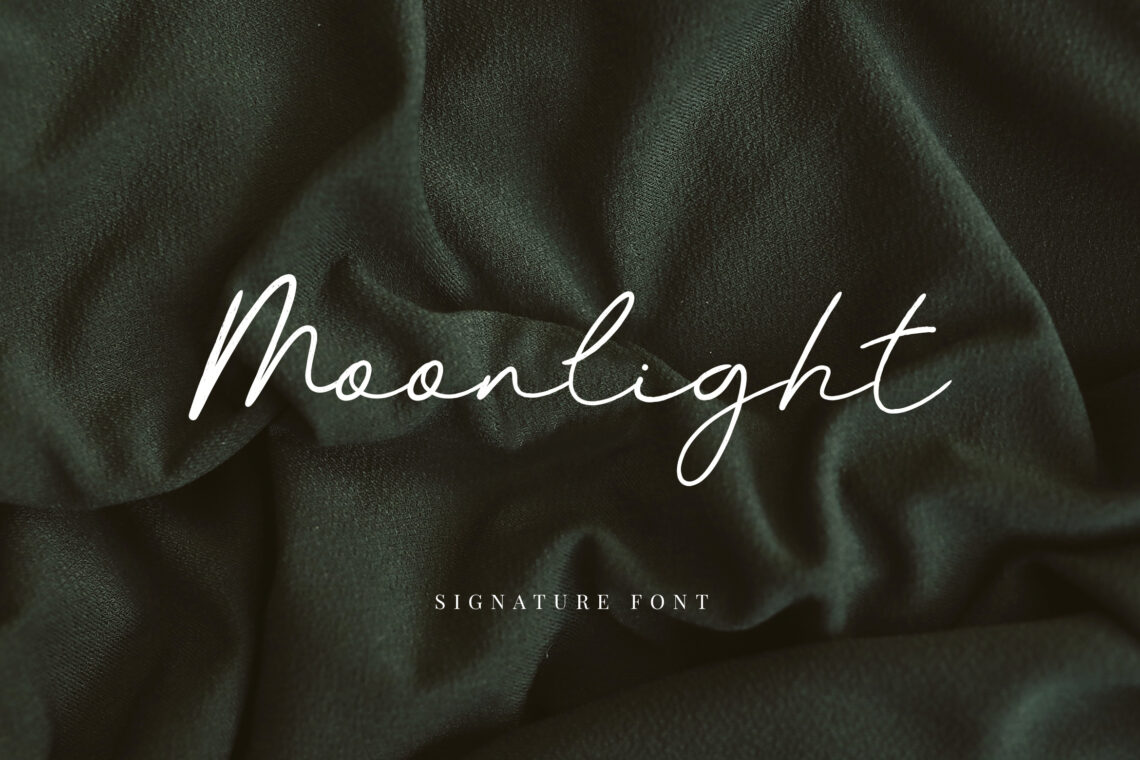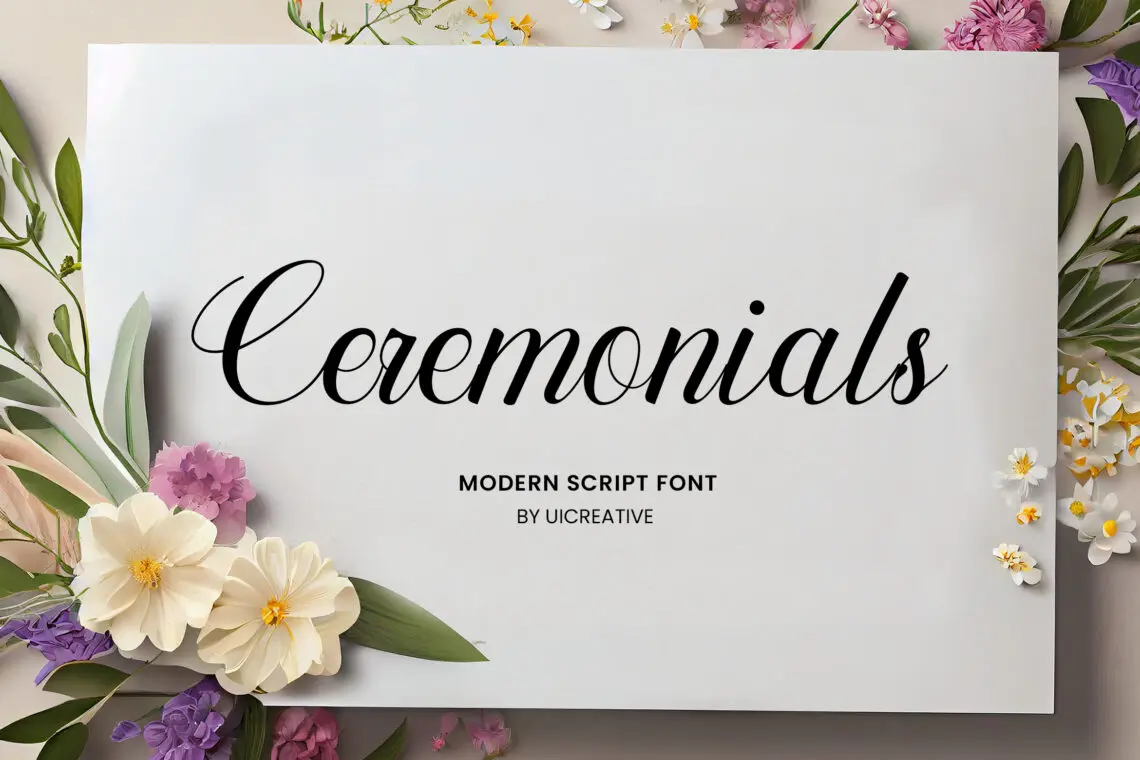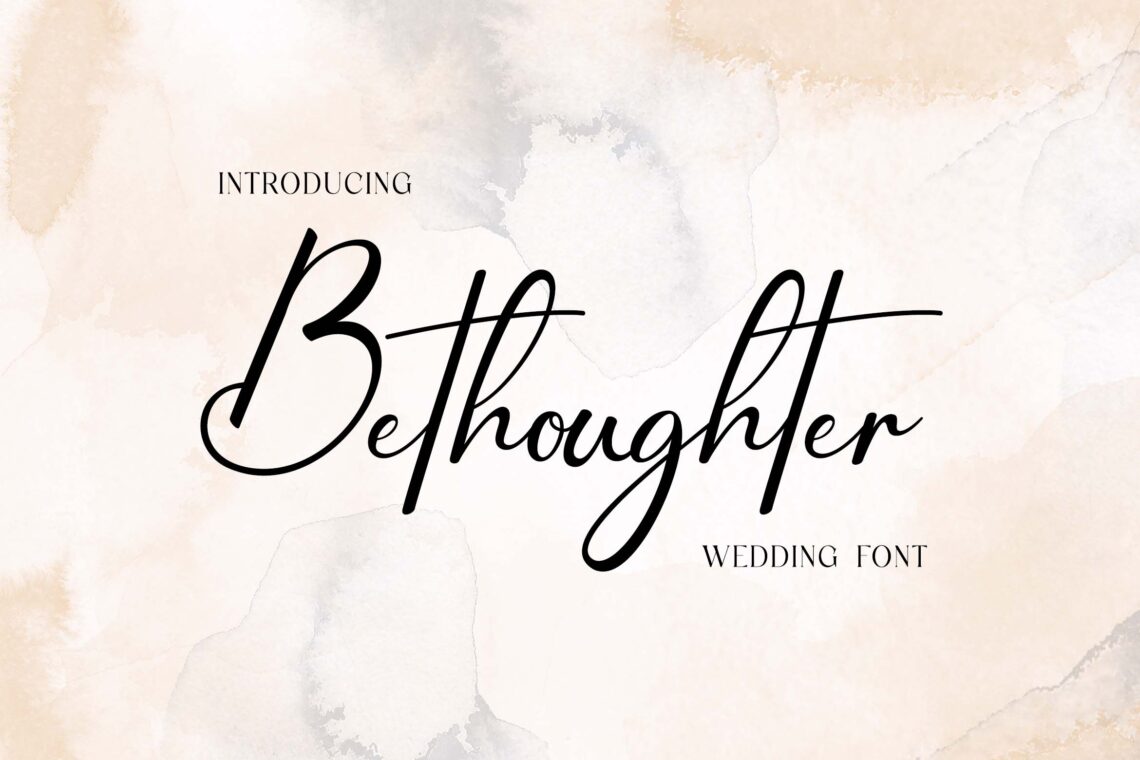
15 Best Romantic Fonts in 2025
Fonts have the power to evoke emotions and create connections. Choosing the right font for romantic designs can elevate the overall aesthetic and convey love, passion, and elegance. Whether you’re designing wedding invitations, love letters, or Valentine’s Day campaigns, romantic fonts bring a touch of enchantment to any project. This article explores what makes a font romantic and highlights the 15 best romantic fonts of 2025.
What are Romantic Fonts?
Romantic fonts are typefaces that evoke feelings of love, intimacy, and sophistication. These fonts often feature elegant curves, flowing scripts, and subtle flourishes. They’re designed to add a personal and artistic touch to your designs. Characteristics such as soft edges, calligraphic styles, and heart-like symbols make them ideal for romantic themes. By incorporating these elements, romantic fonts create a warm and inviting mood.
15 Best Romantic Fonts 2025
1. Imperial Grandiose Script Caligraphy Font
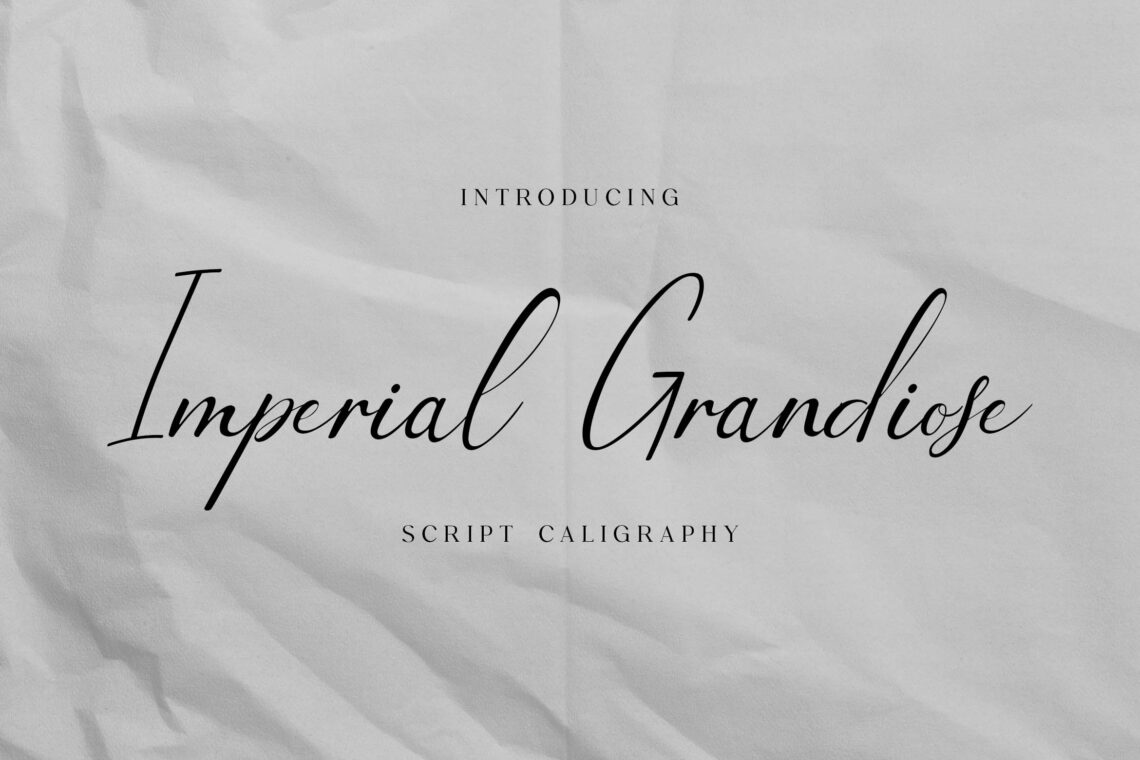
Imperial Grandiose Script Calligraphy Font is a luxurious and elegant typeface designed to elevate your creative projects. With its intricate curves and regal charm, this font brings a timeless sophistication to wedding invitations, branding materials, logos, and more.
Inspired by classic calligraphy and infused with a modern touch, Imperial Grandiose delivers a perfect balance of boldness and delicacy. It supports multiple languages and comes with a wide array of ligatures, swashes, and alternate characters, allowing endless customization options. Let Imperial Grandiose Script transform your designs into captivating works of art that leave a lasting impression.
2. Daneworch Classy Sript Font
Daneworch Classy Script Font is a refined and stylish typeface crafted to add a touch of sophistication to your designs. Featuring smooth, flowing strokes and a modern elegance, this font is perfect for luxury branding, event invitations, social media graphics, and more.
Its versatile character set includes an array of ligatures, swashes, and alternate glyphs, offering endless creative possibilities. Daneworch Classy seamlessly combines traditional calligraphy with contemporary design trends, making it an ideal choice for anyone looking to create eye-catching and timeless visuals. Transform your projects with the effortless charm of Daneworch Classy Script Font.
3. Mandalina Classical Script Font – Romantic Fonts
Mandalina Classical Script Font is a timeless and graceful typeface designed to bring elegance and sophistication to any project. With its delicate strokes and harmonious flow, this font captures the essence of classical calligraphy, making it ideal for wedding stationery, branding, packaging, and more.
Mandalina offers a rich selection of ligatures, swashes, and alternate characters, providing endless opportunities for customization and creativity. Whether you’re crafting a luxurious logo or designing heartfelt invitations, Mandalina Classical Script Font ensures your work exudes charm and refinement. Let your designs shine with the enduring beauty of Mandalina.
4. Amandine Monoline Modern Handwritten Font
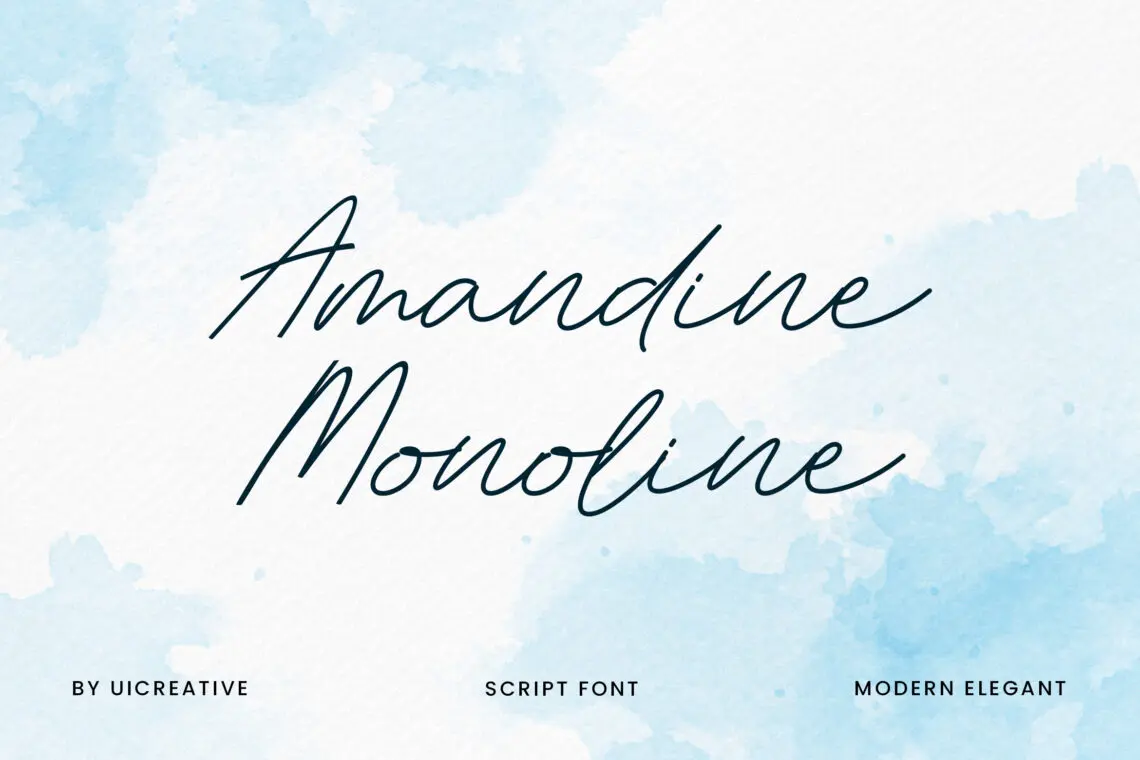
Amandine Monoline Modern Handwritten Font is a sleek and contemporary typeface that embodies simplicity and charm. Designed with smooth, consistent lines and a natural handwritten feel, Amandine is perfect for creating chic and approachable designs. Ideal for logos, social media posts, wedding invitations, and personal branding, this font brings a touch of modern sophistication to every project.
Amandine comes with a full set of characters, ligatures, and alternates, offering versatility and creative freedom. Elevate your work with the effortless elegance of Amandine Monoline, where modern minimalism meets handwritten warmth.
5. Caralance Signature Script Font
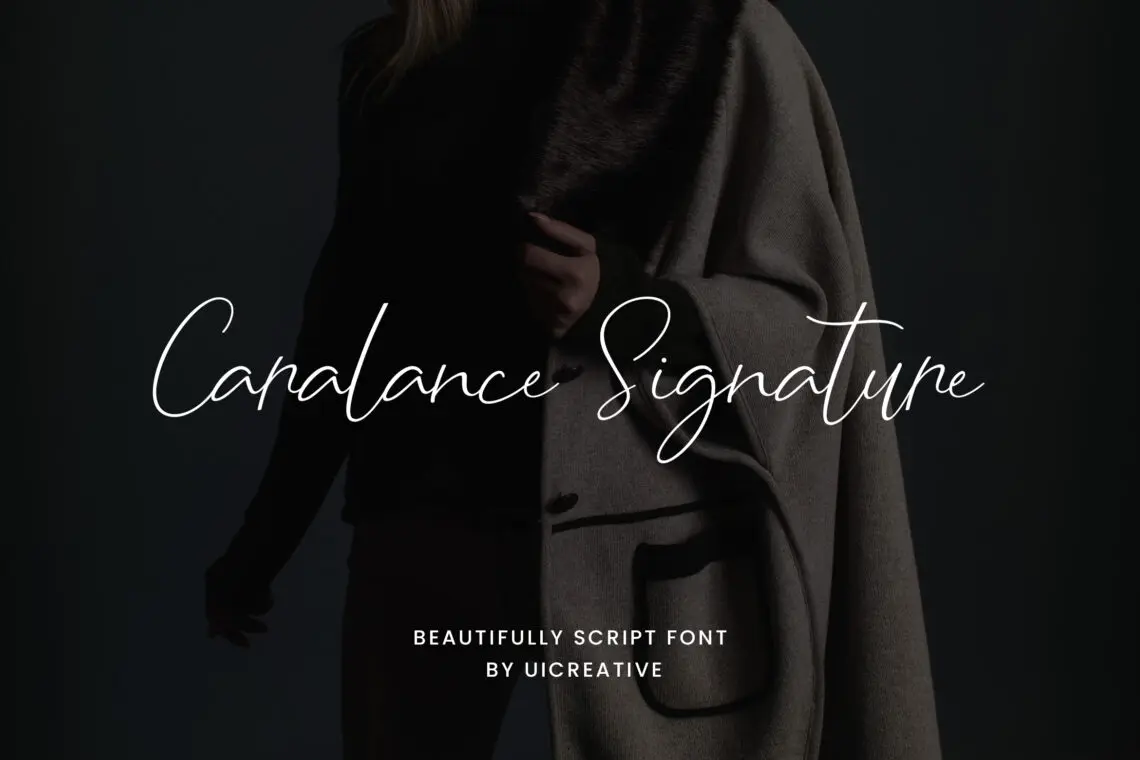
Caralance Signature Script Font is a sophisticated and elegant typeface that captures the essence of a refined handwritten signature. With its smooth curves, graceful strokes, and luxurious appeal, Caralance is the perfect choice for branding, wedding stationery, logos, and upscale designs.
Its natural flow and stylish alternates create a sense of exclusivity and charm, making your projects stand out effortlessly. Complete with ligatures and multilingual support, Caralance Signature Script Font offers versatility and personalization, allowing you to craft stunning visuals with a professional yet personal touch. Let your creativity shine with Caralance’s timeless allure.
6. Shadhowiest Handwritten Font
Shadhowiest Handwritten Font is a bold and expressive typeface that brings a touch of creativity and personality to your designs. Featuring dynamic strokes and a natural, handcrafted feel, Shadhowiest is perfect for eye-catching headlines, logo designs, social media graphics, and personalized stationery. Its unique charm lies in its imperfect yet stylish details, making every project feel authentic and approachable.
15. Marquise Pauline Signature Font – Romantic Fonts
Conclusion
Romantic fonts are an essential tool for designers working on love-themed projects. They add elegance, emotion, and personality to your designs, making them unforgettable. The 15 fonts listed above represent the best romantic fonts in 2025, offering a range of styles to suit any creative vision. Experiment with these fonts to find the perfect match for your next romantic masterpiece.